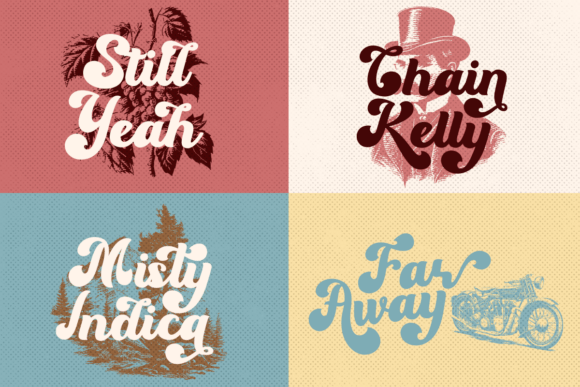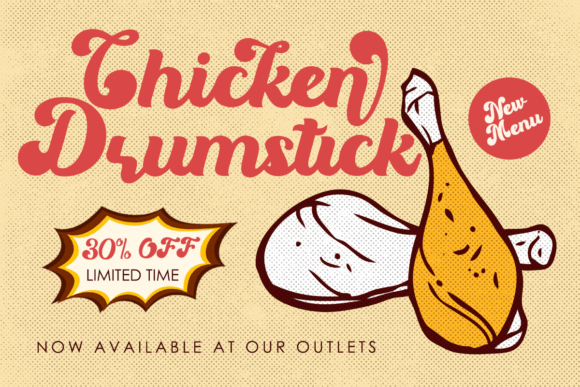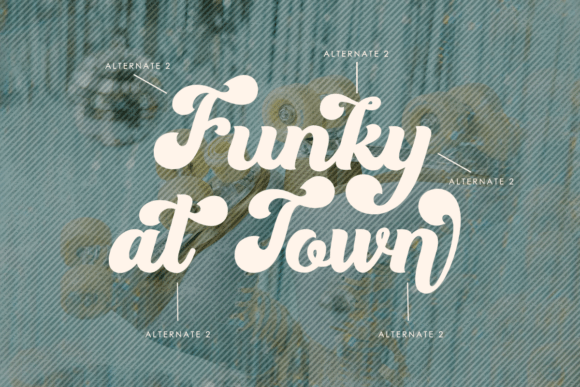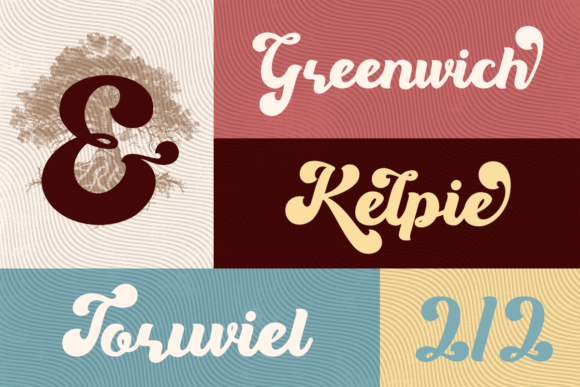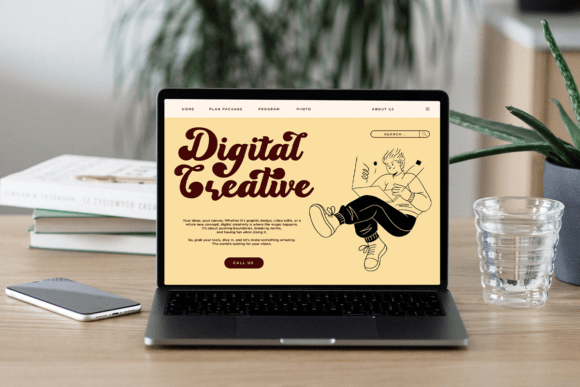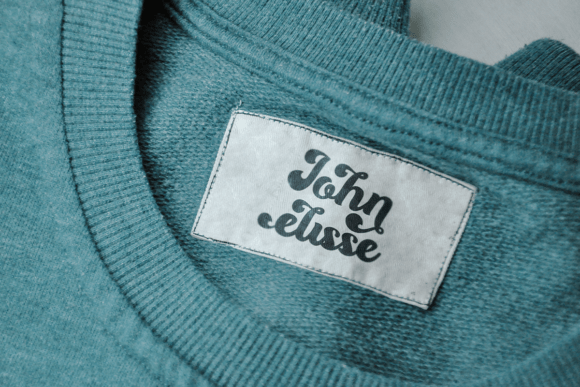
Introduction to Party Fantasia Font
Remember the thrill of designing a new project, only to be stuck on finding the perfect font to bring it to life? For many creatives, this is a familiar scenario. As a designer, you’ve probably spent hours scouring the web for that elusive font that captures the essence of your vision.
Well, your search may be over. Enter the Party Fantasia Font, a stunning and delicate script font that exudes elegance and sophistication. This beautiful font is perfect for designers seeking a high-quality design resource that can elevate their creative project to new heights.
With its lovely, handwritten feel and transparent background, the Party Fantasia Font is an ideal choice for designers who crave a refreshing and unique look. Whether you’re working on a new logo, branding, or digital design project, this font is sure to be a valuable addition to your design arsenal.
Key Features of Party Fantasia Font
- High-quality design: Party Fantasia Font is a premium design resource ideal for creative projects, offering a unique and stylish aesthetic.
- Unique characteristics: The font features a distinctive, whimsical design with intricate details and flourishes, making it perfect for adding a touch of personality to your work.
Honest Review: Party Fantasia Font
- What works well: ✨ The font’s playful and whimsical style is perfect for a party-themed design. The high quality of the font ensures that it looks great even on a transparent background, making it ideal for use in graphics and digital art.
- What works well: ✨ The font’s versatility allows me to use it for a variety of creative projects, from invitations to social media graphics.
However, I did encounter a few limitations with the Party Fantasia Font. ⚠️ The font’s limited character set made it difficult to use for longer blocks of text, and I had to get creative with my typography to work around this issue.
Overall, I’m impressed with the Party Fantasia Font. While it may have some limitations, its unique style and high quality make it a valuable addition to my design resources. If you’re looking for a fun and playful font for your next creative project, I’d definitely recommend giving the Party Fantasia Font a try.
Tips for Getting the Most Out of the Party Fantasia Font
To get the most out of the Party Fantasia Font, use it in conjunction with a transparent background to create a unique and eye-catching design. You can also experiment with different font sizes and styles to add visual interest to your project.
Common Use Cases for the Party Fantasia Font
The Party Fantasia Font is ideal for use in creative projects, such as invitations, posters, and social media graphics. Its high-quality design and transparent background make it a versatile and effective design resource for free download.